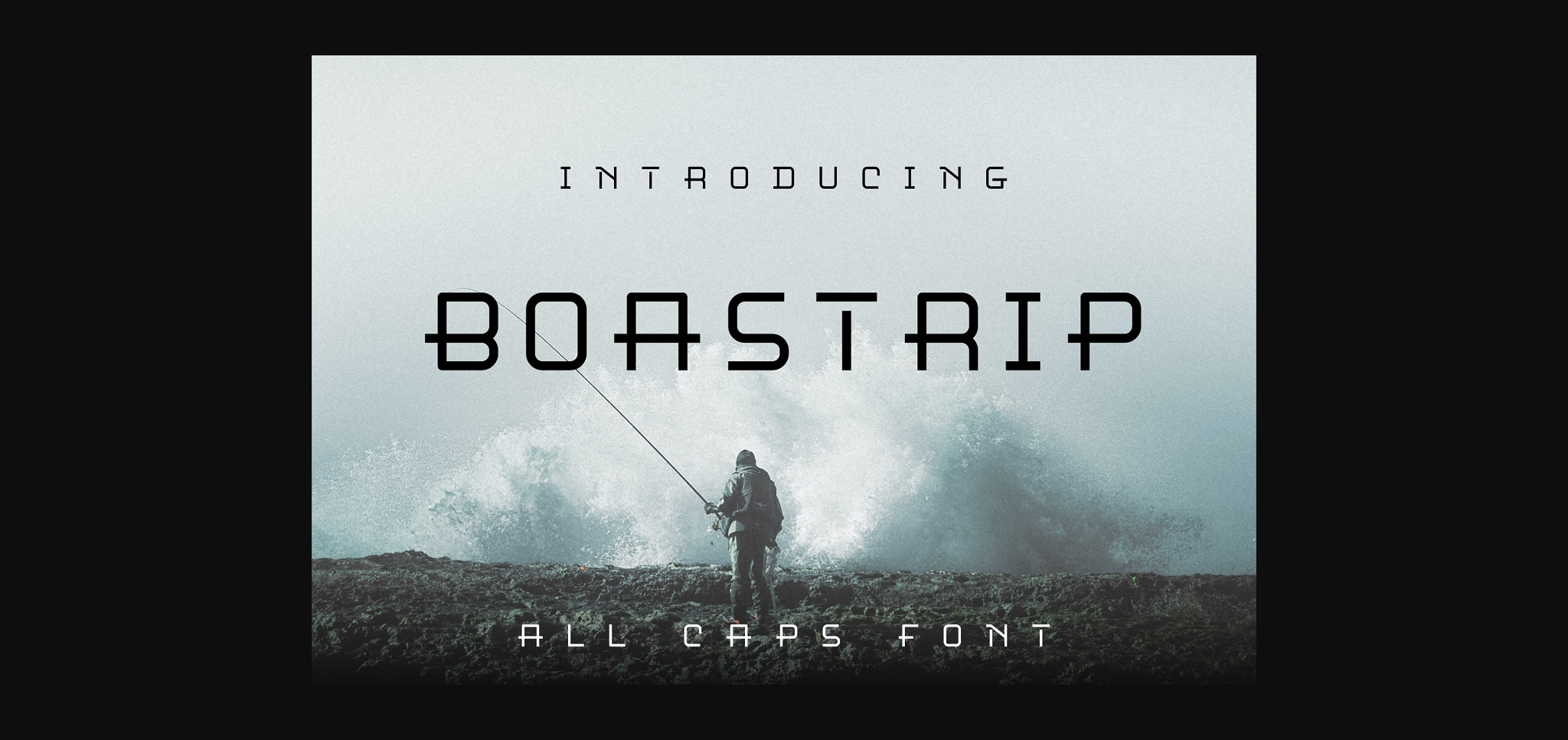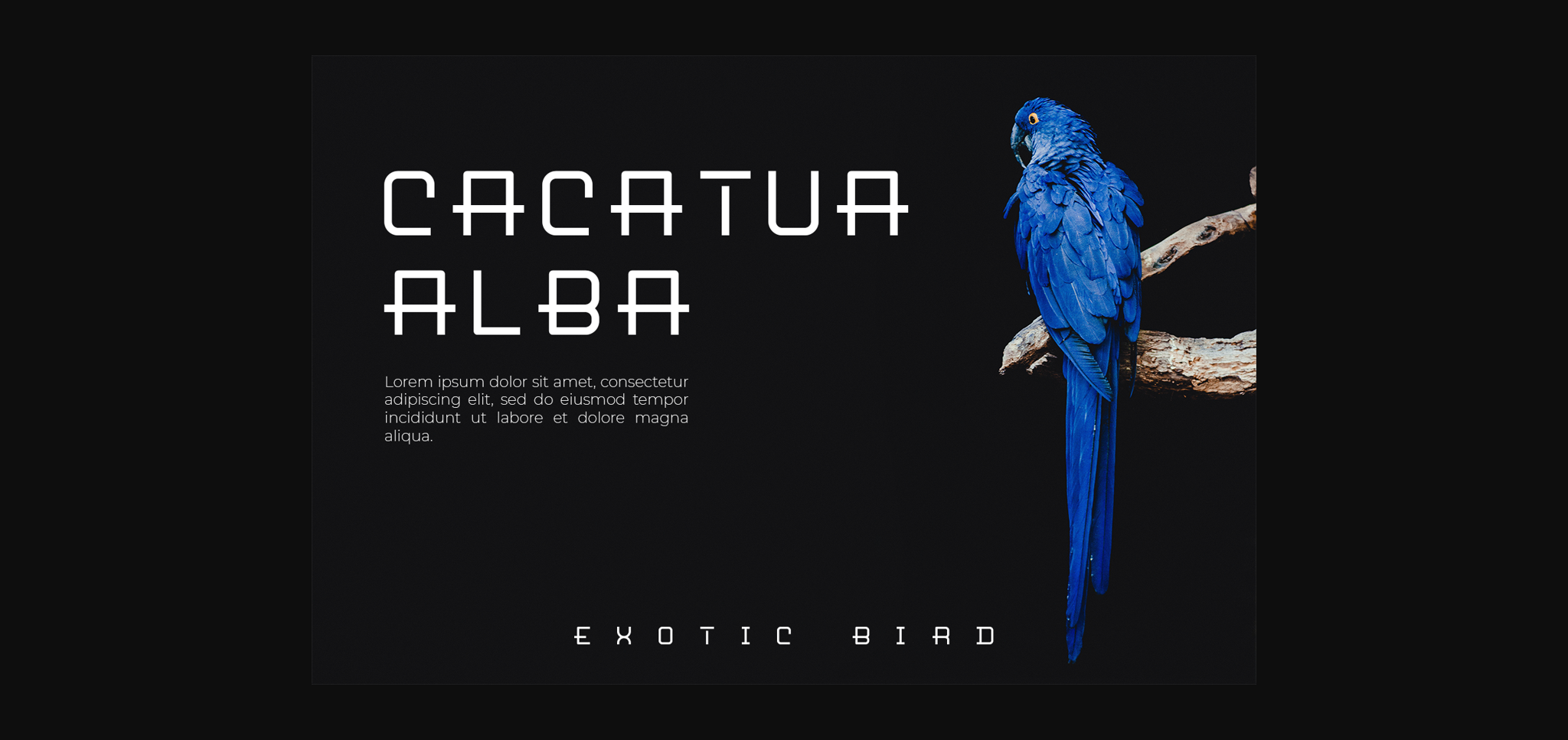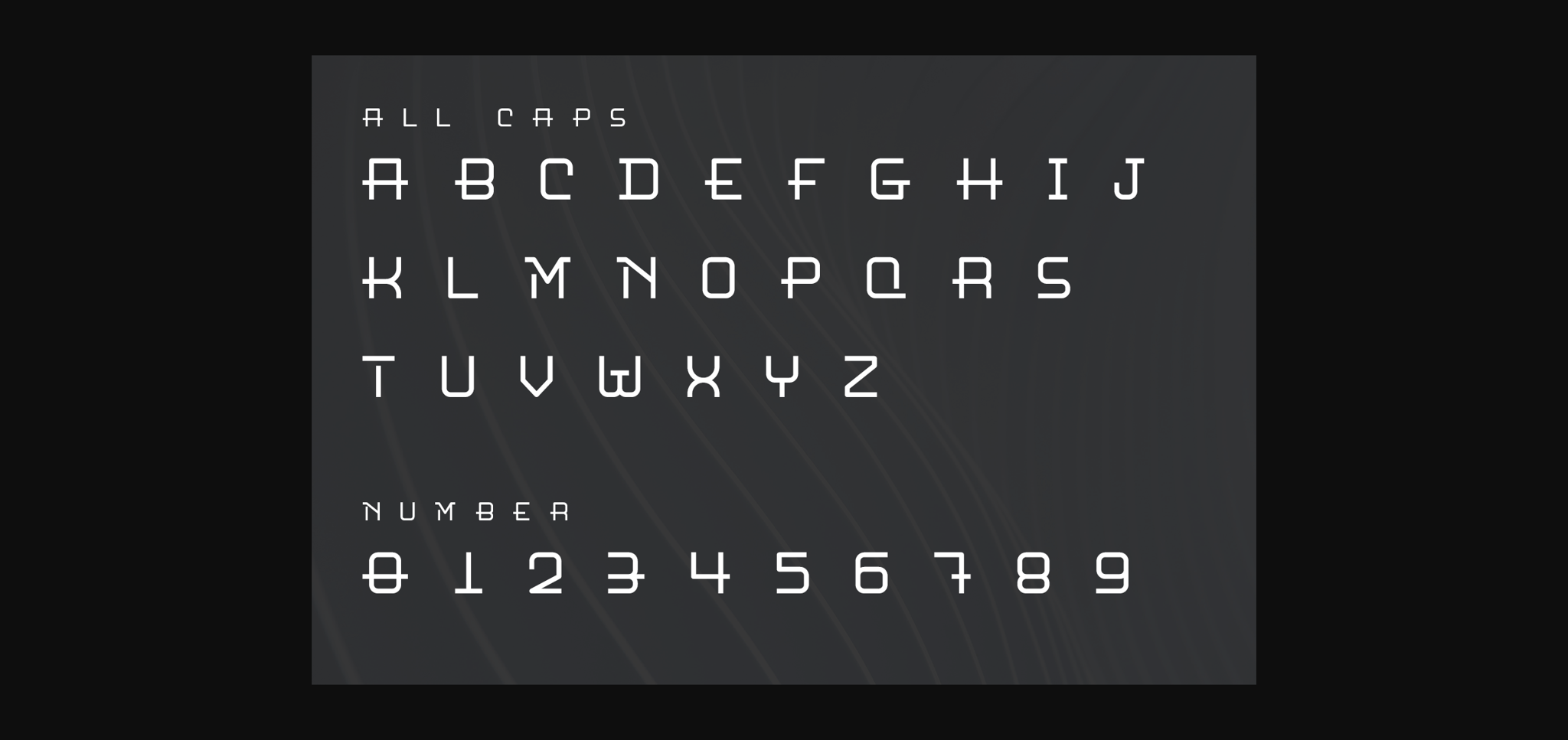
About Boastrip Font
Boastrip is a cool and unique sans serif font. This font is neatly crafted and highly detailed. Whatever the topic, this font will be a wonderful asset to your font library, as it has the potential to enhance any creation.